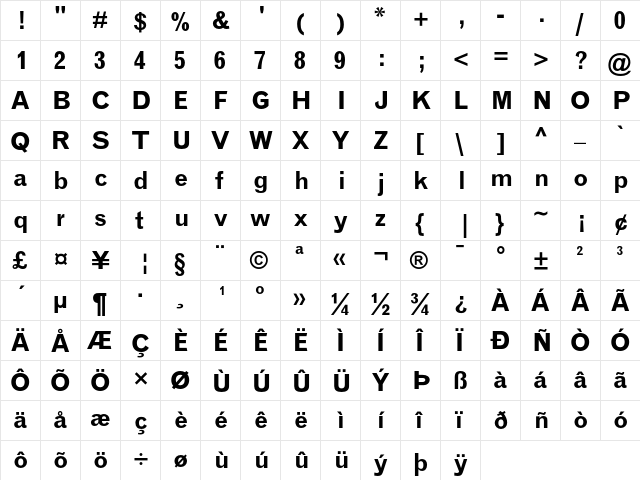
Grotesque MT Bold
Design Context for Grotesque MT Typeface
Grotesque MT is a composed and adaptable typeface that performs quietly and consistently across a wide range of design contexts. The heavy weight commands attention and anchors typographic hierarchies.